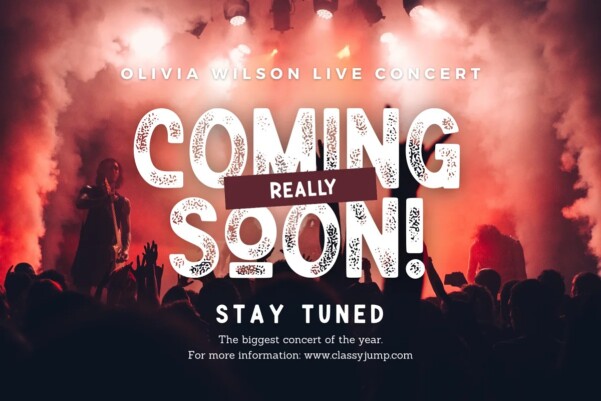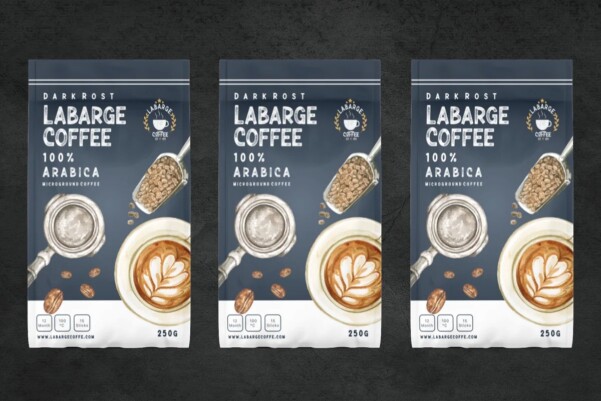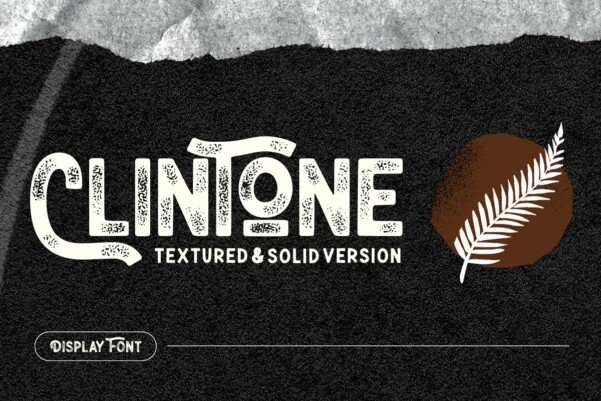
Clintone Font
Clintone Font a display font with 2 style (textured & solid) suitable for your design project needs, such as; logotype, branding, packaging, social media posts, quotes, overlays on images, tagline logos, posters, print needs, website banners, and more.